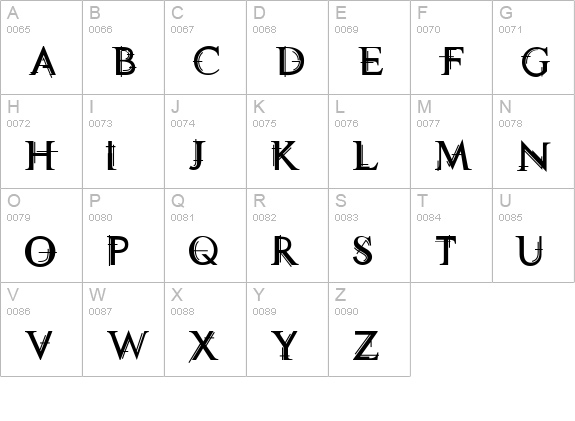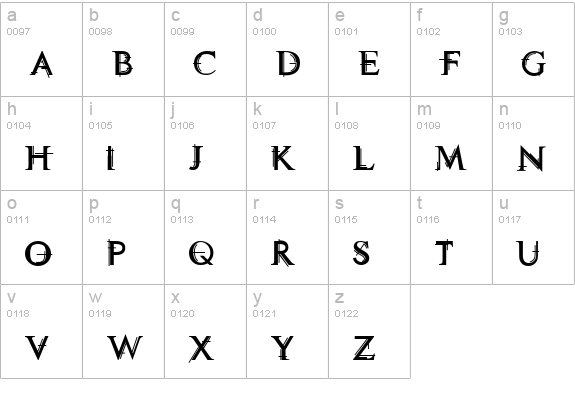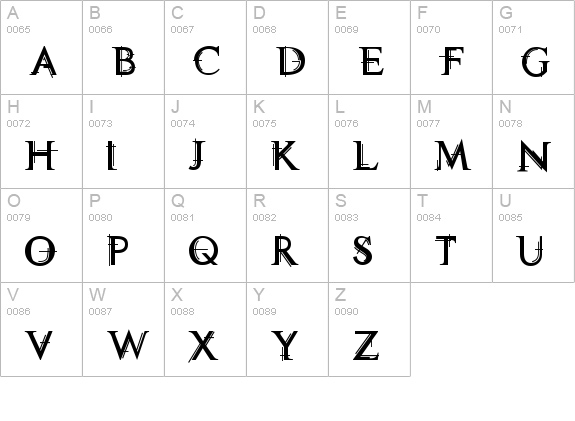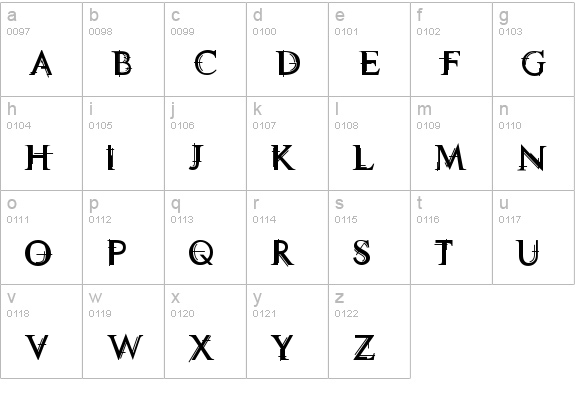
Technovia Caps font is a modern and sleek typeface that exudes a sense of sophistication and innovation. With its geometric shapes and sharp edges, this font is perfect for creating eye-catching headlines, logos, and posters. The clean lines and bold design of Technovia Caps make it ideal for projects that require a contemporary and futuristic feel. This font is not only visually appealing, but it is also incredibly versatile. Whether you are designing for print or digital media, Technovia Caps will make your text stand out and grab attention. Its uppercase letters are bold and commanding, making a strong impact in any design. One of the best things about Technovia Caps font is that it is free. Yes, you read that right! This incredible font is freely available to download at FontsMarket.com. You can use it for personal or commercial projects without any restrictions. This means that you can elevate your designs without breaking the bank. Downloading Technovia Caps font is a breeze. Simply head over to FontsMarket.com, search for Technovia Caps, and click on the download button. Within minutes, you'll have access to this remarkable font and be able to start incorporating it into your designs. Don't miss out on the opportunity to add Technovia Caps to your font collection. Its modern and sleek design, combined with its free availability, makes it a must-have for designers, creatives, and anyone looking to make a bold statement with their typography. Download Technovia Caps font today and take your designs to the next level.